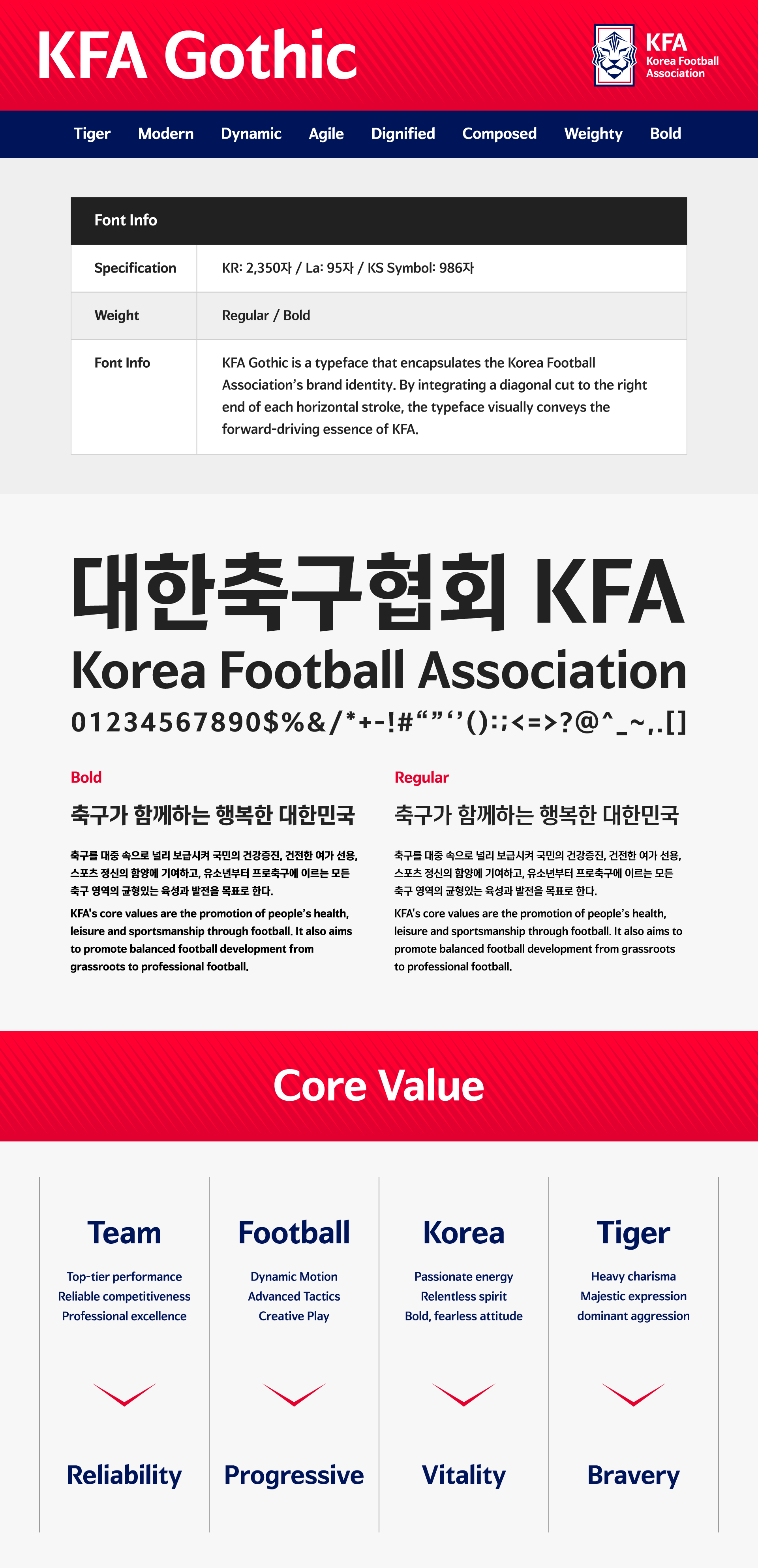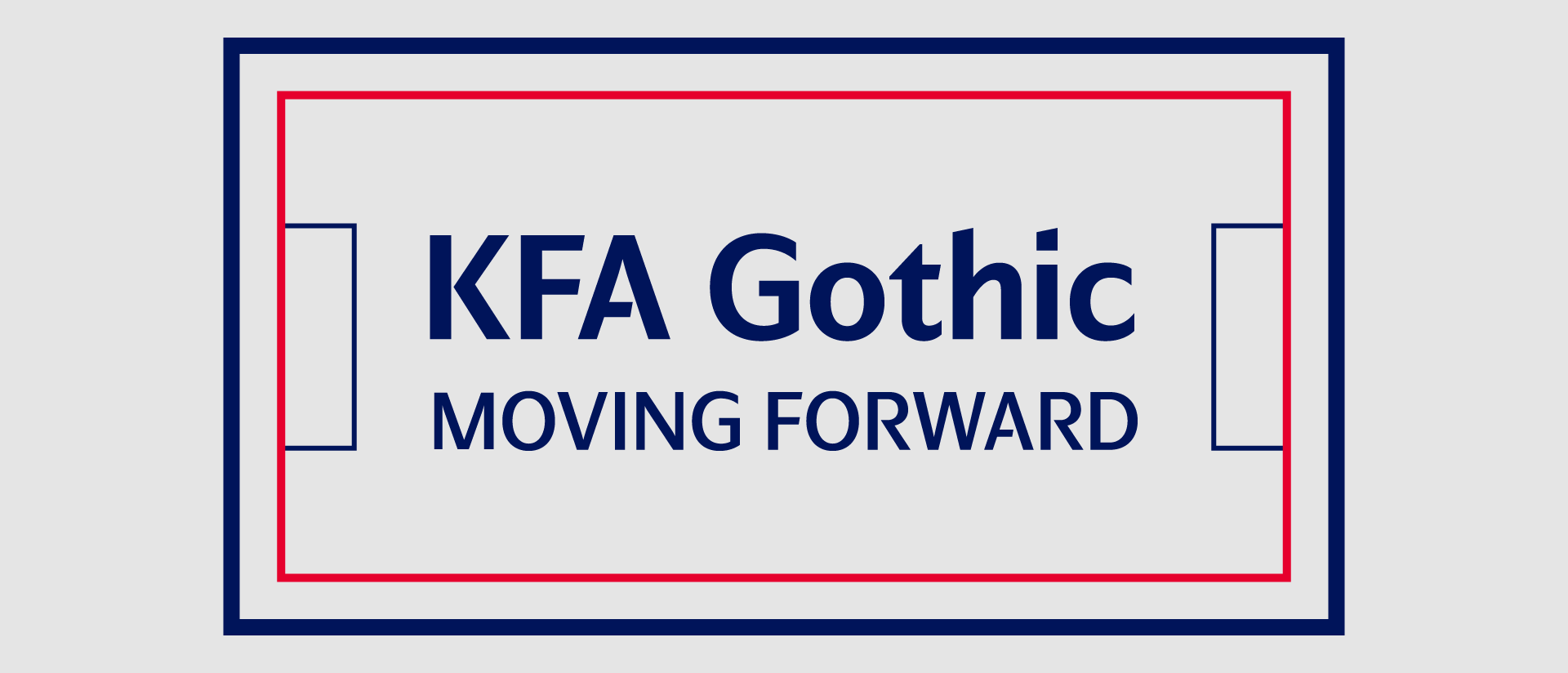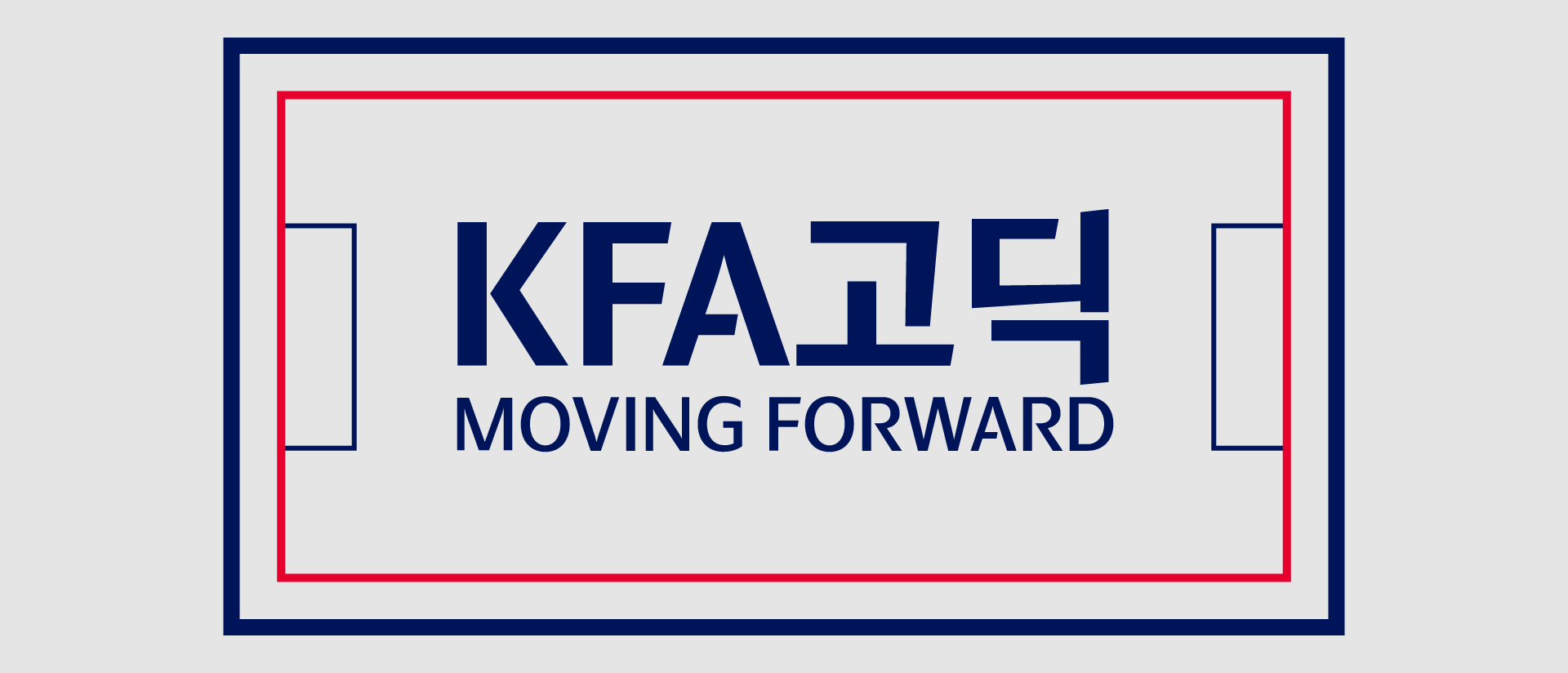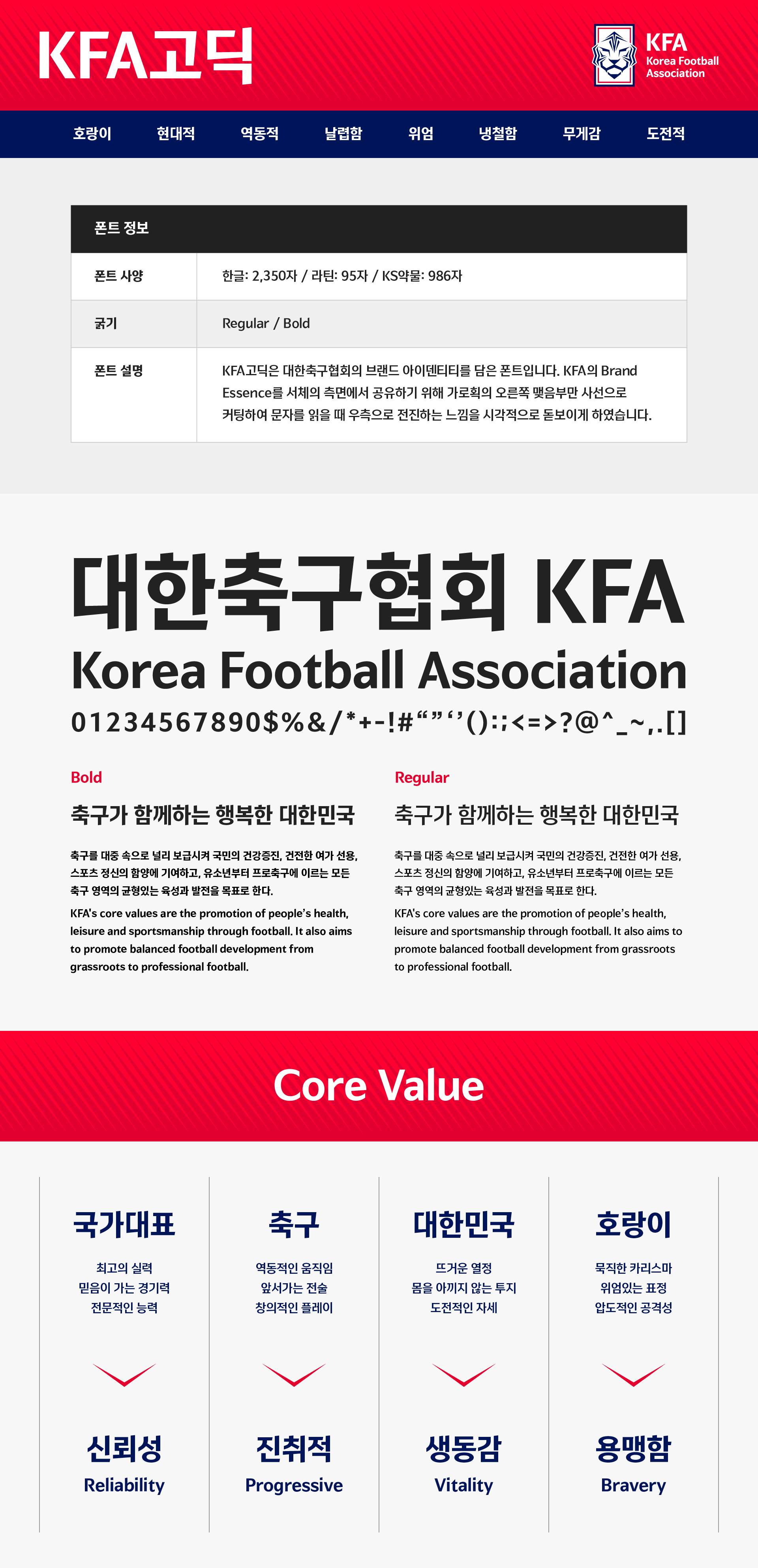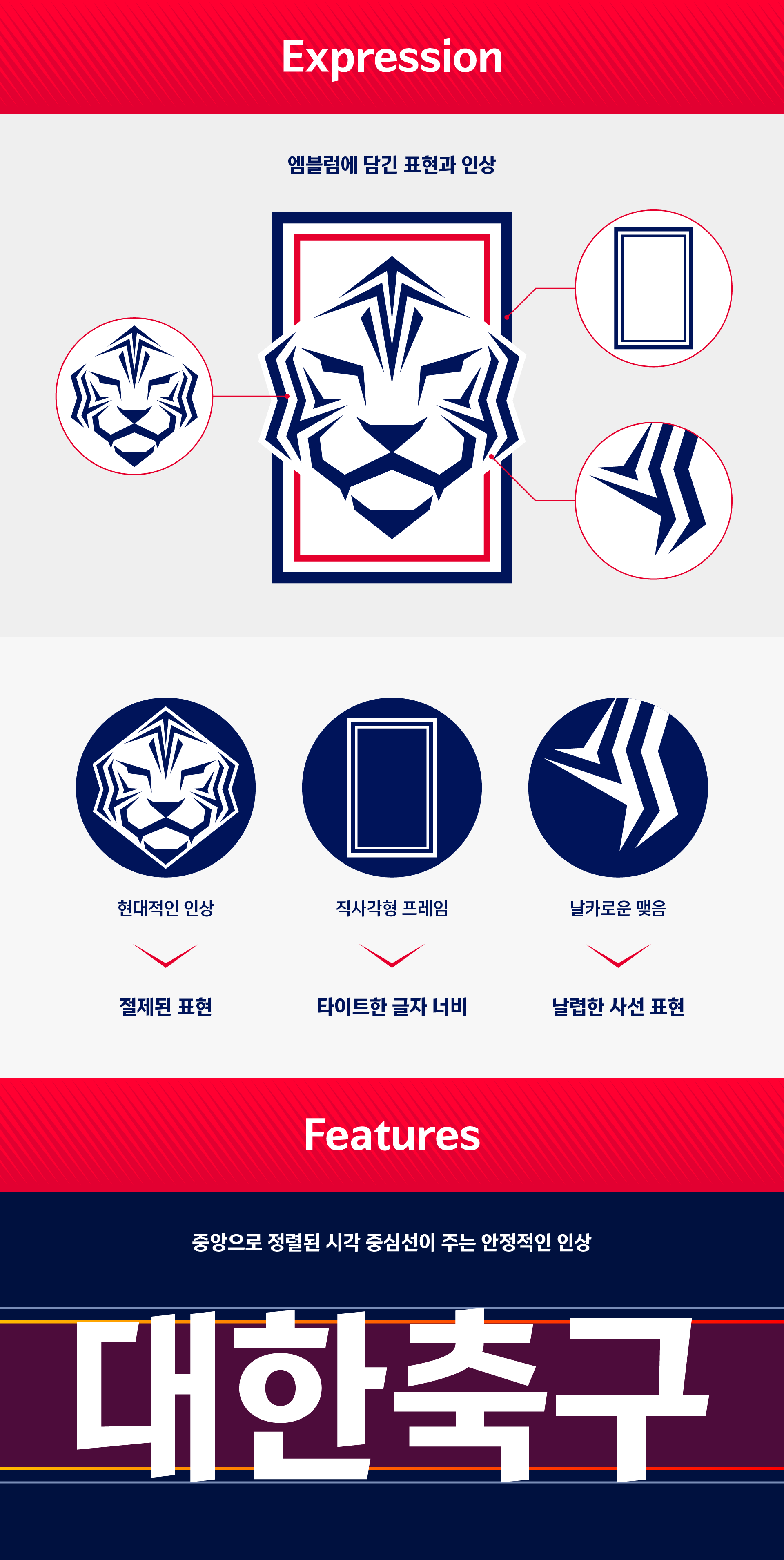
KFA Gothic
To reflect the brand essence of the Korea Football Association (KFA) through typography, we applied a distinctive design feature: only the right end of each horizontal stroke is cut at a diagonal. This subtle yet deliberate choice gives the text a sense of forward momentum, visually reinforcing the dynamic and progressive spirit of KFA.
The long and narrow rectangular proportions of the emblem are echoed in the font’s character width, creating a visual link between the typeface and the logo. This condensed width evokes a modern and agile feel, as opposed to the stable and classic impression of wider typefaces.
The high contrast between horizontal and vertical strokes mirrors the strong visual impact found in the KFA emblem. This contrast adds a sophisticated and dignified tone to the letterforms, echoing the poised and powerful expression of a tiger.